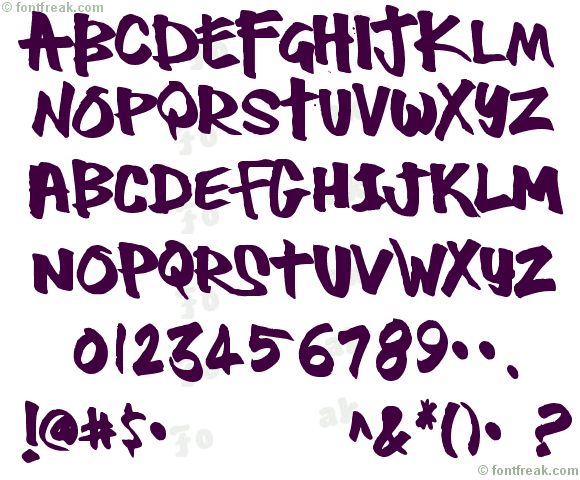
Thug
About Thug
Introducing the Thug font by Font-a-licious Fonts, a striking and bold display typeface that captures attention with its unique character. This font, categorized as a decorative style, features a distinctive, hand-drawn aesthetic that evokes a sense of urban edginess. Its irregular strokes and varied weight create a dynamic look, making it ideal for projects that require a strong visual impact.
The visual characteristics of the Thug font include thick, uneven strokes that give it a graffiti-like appearance. The contrast between the bold and light areas enhances its rugged charm, while the spacing between letters allows for easy readability, even in larger sizes. Decorative elements are minimal, allowing the inherent style of the typeface to take center stage.
This font is particularly well-suited for use cases such as album covers, streetwear branding, skate shop signage, or any project that aims to convey a rebellious spirit. Additionally, it can enhance marketing materials for events such as music festivals or urban-themed parties. Graphic designers, small business owners, and content creators looking to make a bold statement will find the Thug font to be a valuable addition to their toolkit.
What sets the Thug font apart is its ability to blend creativity with versatility. Its unique style allows it to stand out in a crowded market, making it an excellent choice for those seeking to make an impression. With the Thug font free download, you can easily incorporate this dynamic typeface into your next project, ensuring that your designs resonate with an edgy flair. Whether you’re crafting promotional materials or designing apparel, the Thug font will elevate your work and capture your audience’s attention.